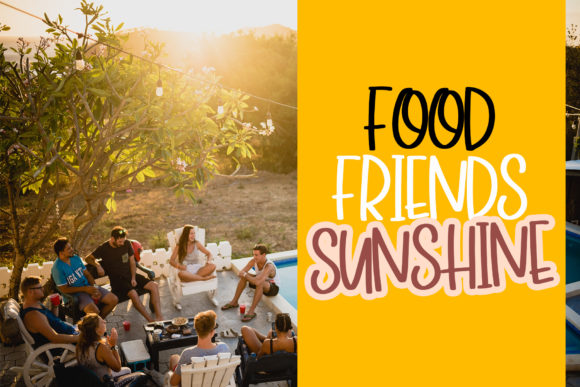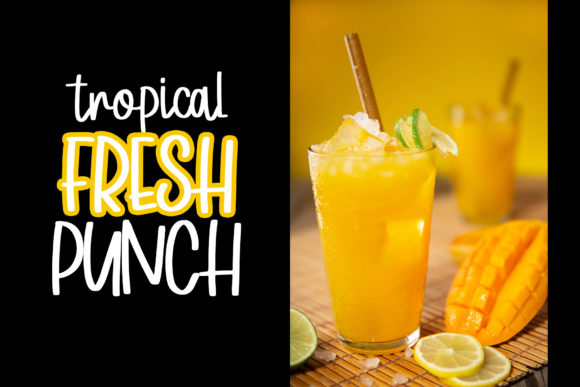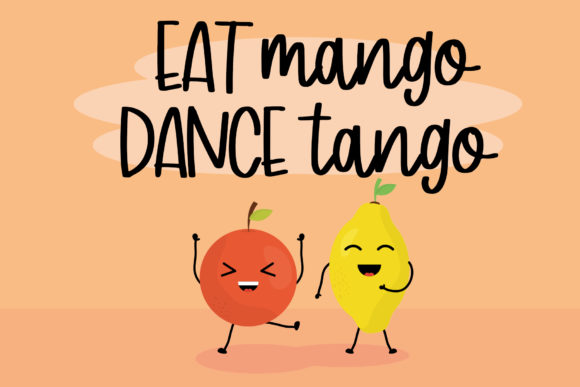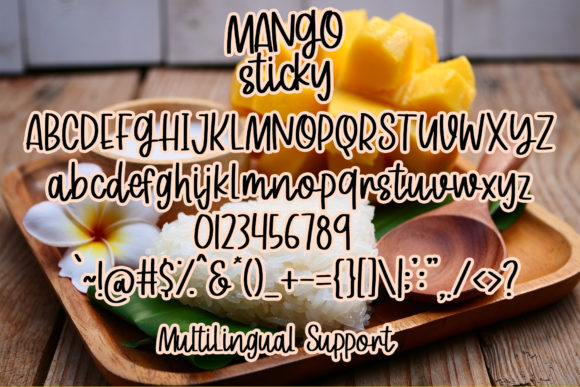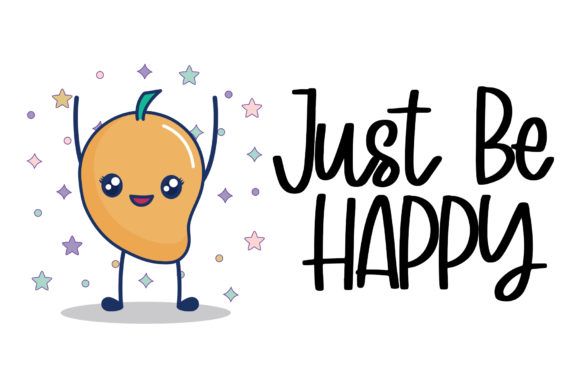
Mango Sticky Font
About Mango Sticky Font
Mango Sticky, a sweet handwritten font with an authentic vibe. It will turn any creative idea into a true standout.